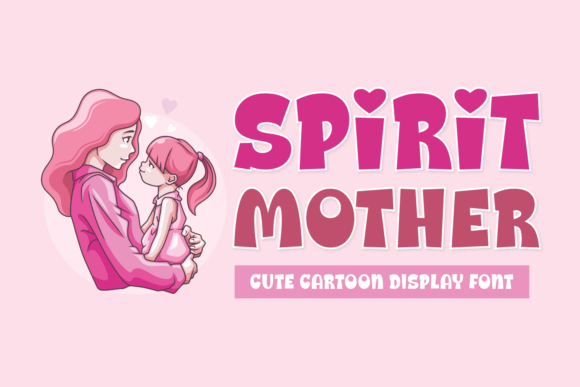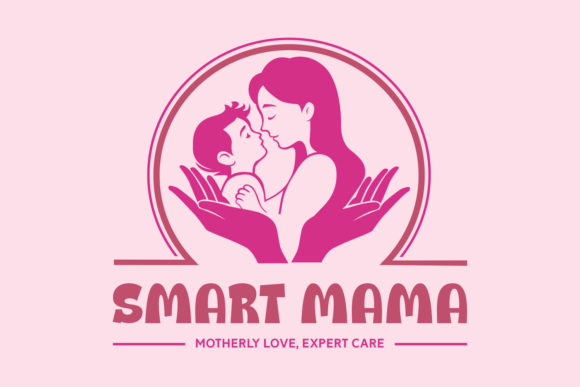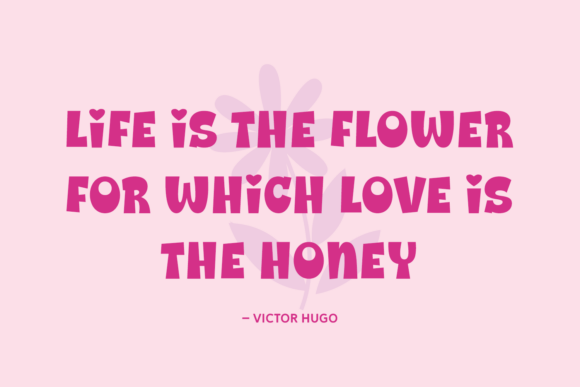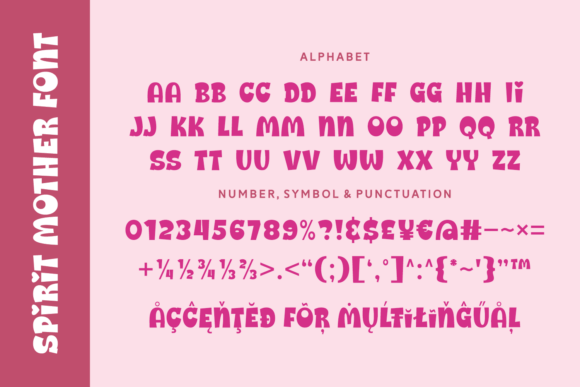
Spirit Mother Font
About the Spirit Mother Font
Unleash your creativity with Spirit Mother Font, a versatile font perfect for a wide range of applications. Spirit Mother is a cute and charming display font. Add this bold font to your design and watch how it brings it to life. It’s suitable for book covers, posters, packaging, merchandise, logotype, and much more. Spirit Mother radiates energy and charm with every glyph.
Spirit Mother Font Usage Examples
Spirit Mother Font Example